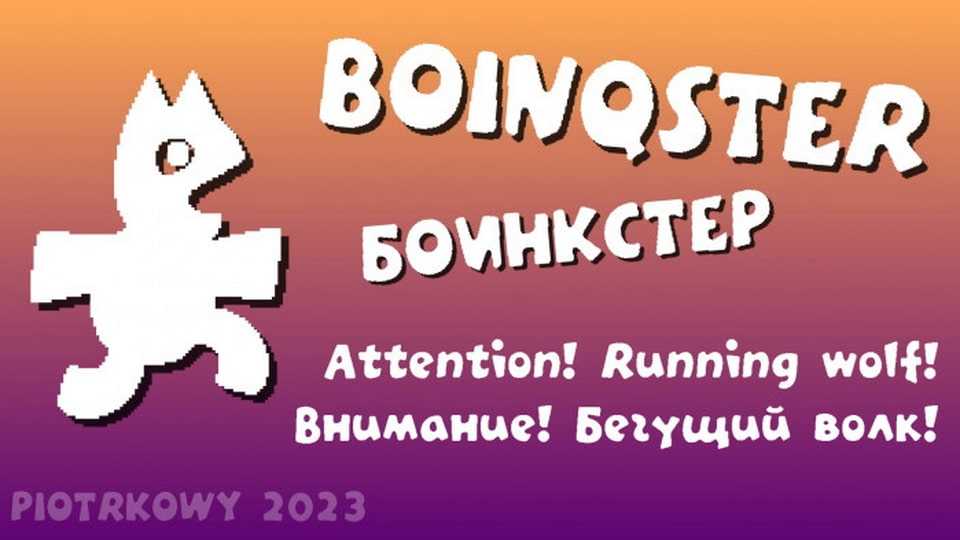
Download Boinqster font, a friendly and funny display typeface with a playful vibe and a cute touch. Boinqster font is perfect to create expressive messages, eye-catching posters, flyers and cartoon artworks.
Designer: Piotrkowy